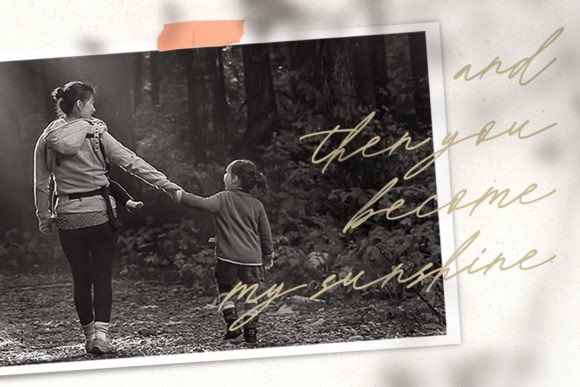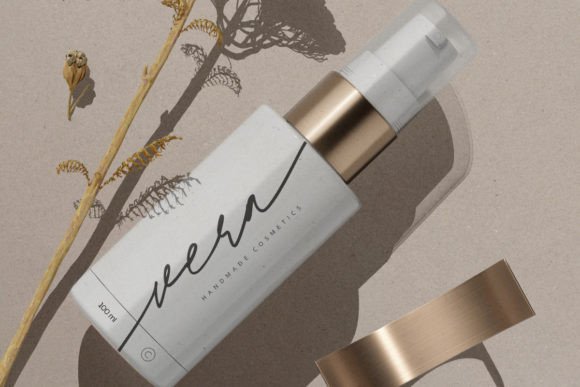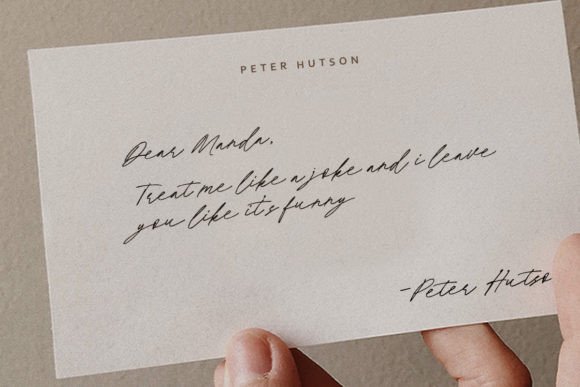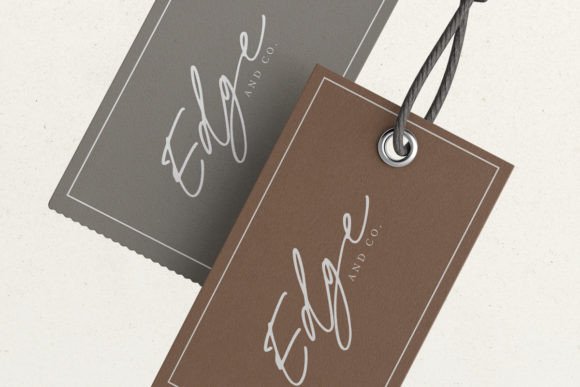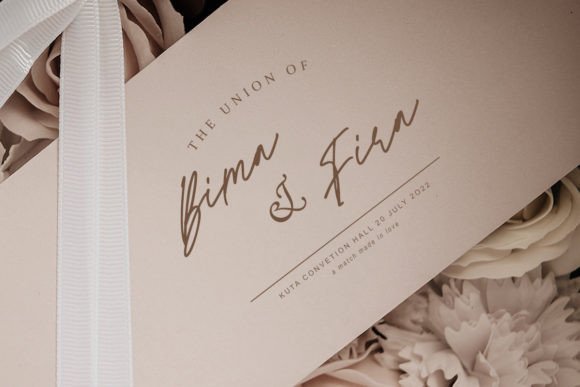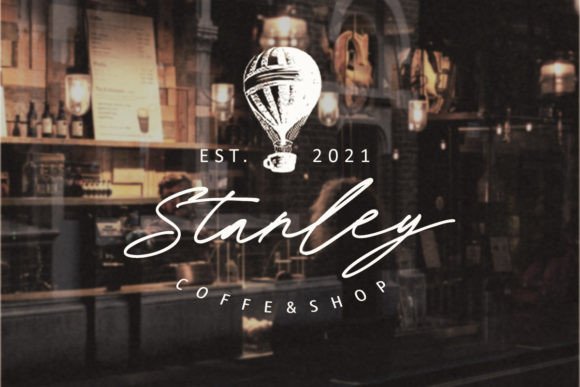
Bella Rose Font: Elevate Your Designs with Elegance and Sophistication
In the world of typography, a font can make or break a design. It has the power to evoke emotions, convey messages, and add a touch of personality to any creation. If you’re a designer, crafter, or simply someone who appreciates beautiful typography, then you’re in luck. Introducing Bella Rose, a dazzling script font that’s sure to become a valuable asset in your font library.
What is Bella Rose Font?
Bella Rose is a meticulously crafted script font that’s designed to add a touch of elegance and sophistication to any project. With its highly detailed and neat design, this font is perfect for a wide range of applications, from wedding invitations and branding materials to digital content and craft projects.
Key Features of Bella Rose Font
- Unique and Elegant Design: Bella Rose boasts a distinctive and stylish design that’s sure to turn heads. Its intricate details and flowing lines make it perfect for creating beautiful, eye-catching text.
- Highly Versatile: Whether you’re working on a wedding invitation, a logo, or a social media post, Bella Rose is a versatile font that can adapt to any design style or theme.
- Easy to Read: Despite its ornate design, Bella Rose is surprisingly easy to read, making it perfect for body text, headings, and titles.
Why Choose Bella Rose Font?
So, why should you choose Bella Rose over other fonts? Here are just a few compelling reasons:
- Adds a Touch of Elegance: Bella Rose adds a level of sophistication and refinement to any design, making it perfect for high-end brands, wedding invitations, and special occasions.
- Enhances Creativity: With its unique and stylish design, Bella Rose can inspire creativity and help you think outside the box.
Tips and Tricks for Using Bella Rose Font
Here are some tips and tricks to help you get the most out of Bella Rose:
- Experiment with Colors: Bella Rose looks stunning in a variety of colors, from metallic gold and silver to rich jewel tones.
- Play with Sizes: Bella Rose can be used for both large and small text, so don’t be afraid to experiment with different sizes.
- Pair with Other Fonts: Bella Rose pairs beautifully with other fonts, such as sans-serif fonts for a modern contrast.